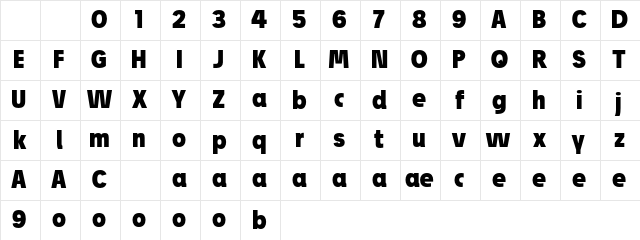
Josef Pro Bold is a composed and adaptable typeface that performs quietly and consistently across a wide range of design contexts. Its bold stroke weight gives it real presence on the page.